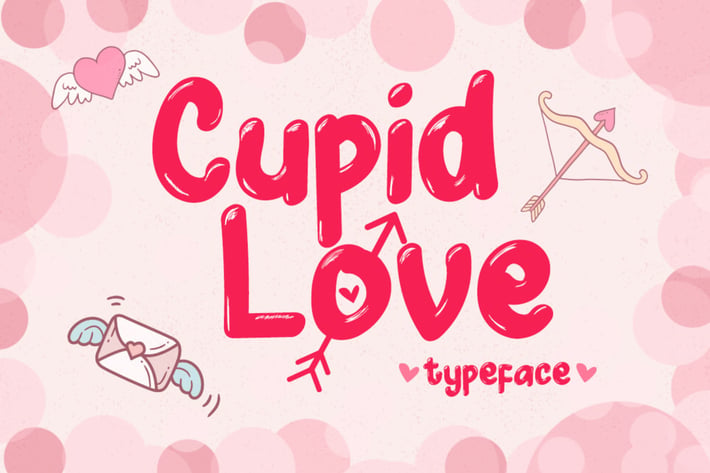
Cupid Love - A Lovely Typeface
Introducing, Cupid Love typeface. This is a bold-fun display typeface that will bring lovely touch for your valentine's day!
Comes in regular style and alternated with cupid's arrow in several characters. Great for merchandises, printing, quotes, cards, posters, and many more!
Cupid Love Features :
- Standard Characters ( Uppercase & Lowercase )
- Numerals
- Symbols
- Alternative characters ( O a b e o q )